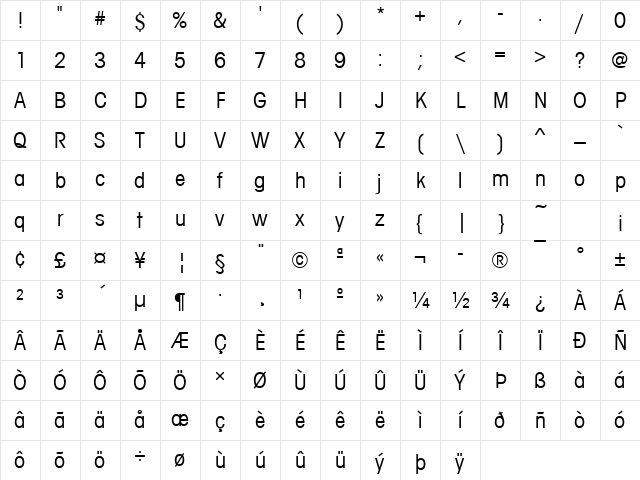
AvantGarGotItcTCon Regular
Complete AvantGarGotItcTCon Regular glyph index. Displaying only characters natively supported by AvantGarGotItcTCon Regular font.
Design Context for AvantGarGotItcTCon
AvantGarGotItcTCon is a composed and adaptable typeface that performs quietly and consistently across a wide range of design contexts.